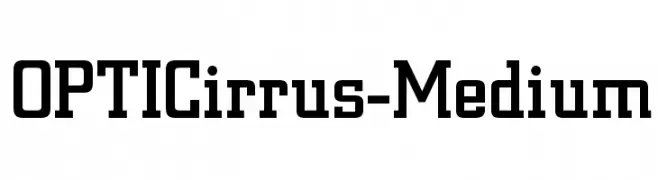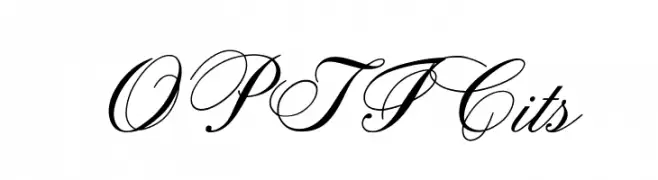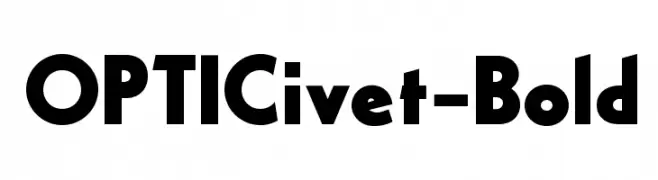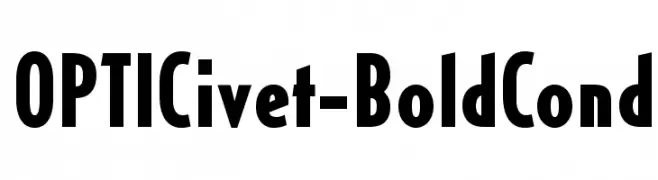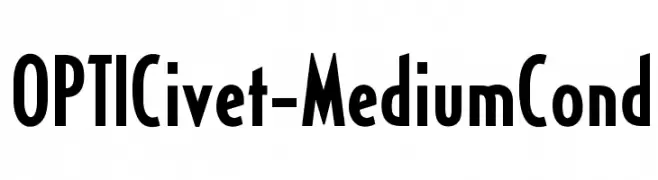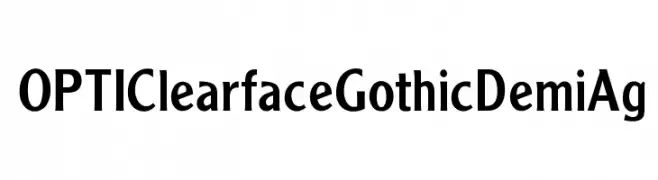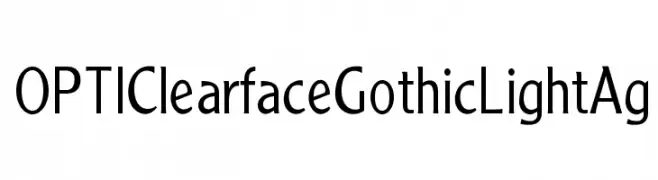
A bold, modern font with structured, geometric shapes and a slightly condensed style.
An elegant script font with flowing, decorative swashes and intricate loops.
A bold, geometric font with Art Deco influences and strong, angular lines.
A bold, condensed font with a modern and impactful style.
A modern, geometric sans-serif font with consistent stroke width and clear legibility.
A modern, condensed font with tall, narrow characters and uniform stroke width.
A bold, geometric typeface with clean lines and a modern aesthetic.
A bold, modern, and condensed font perfect for impactful headlines.
A modern sans-serif font with bold, clean lines and a professional appearance.
A modern, geometric sans-serif font with a clean and professional look.